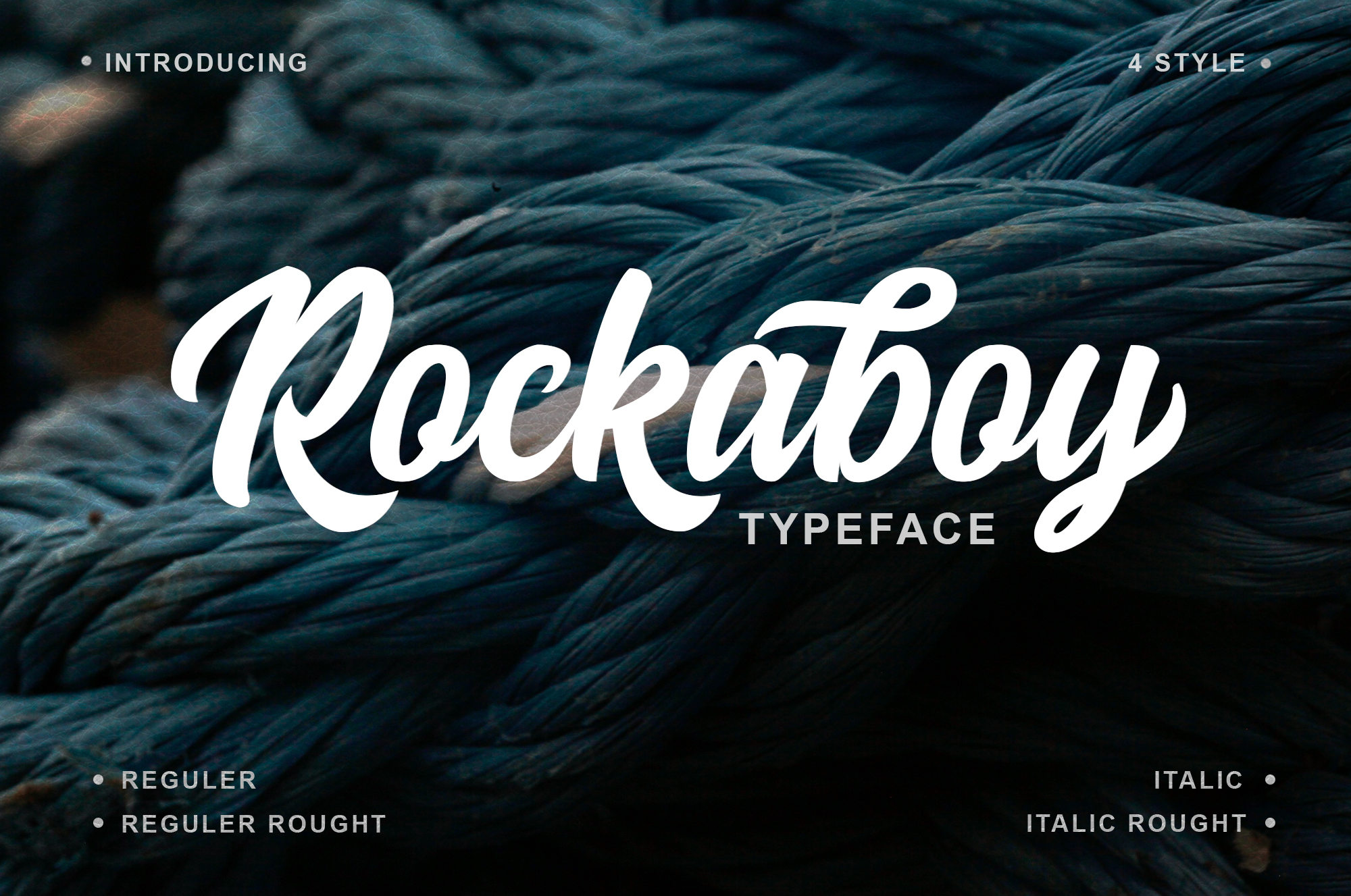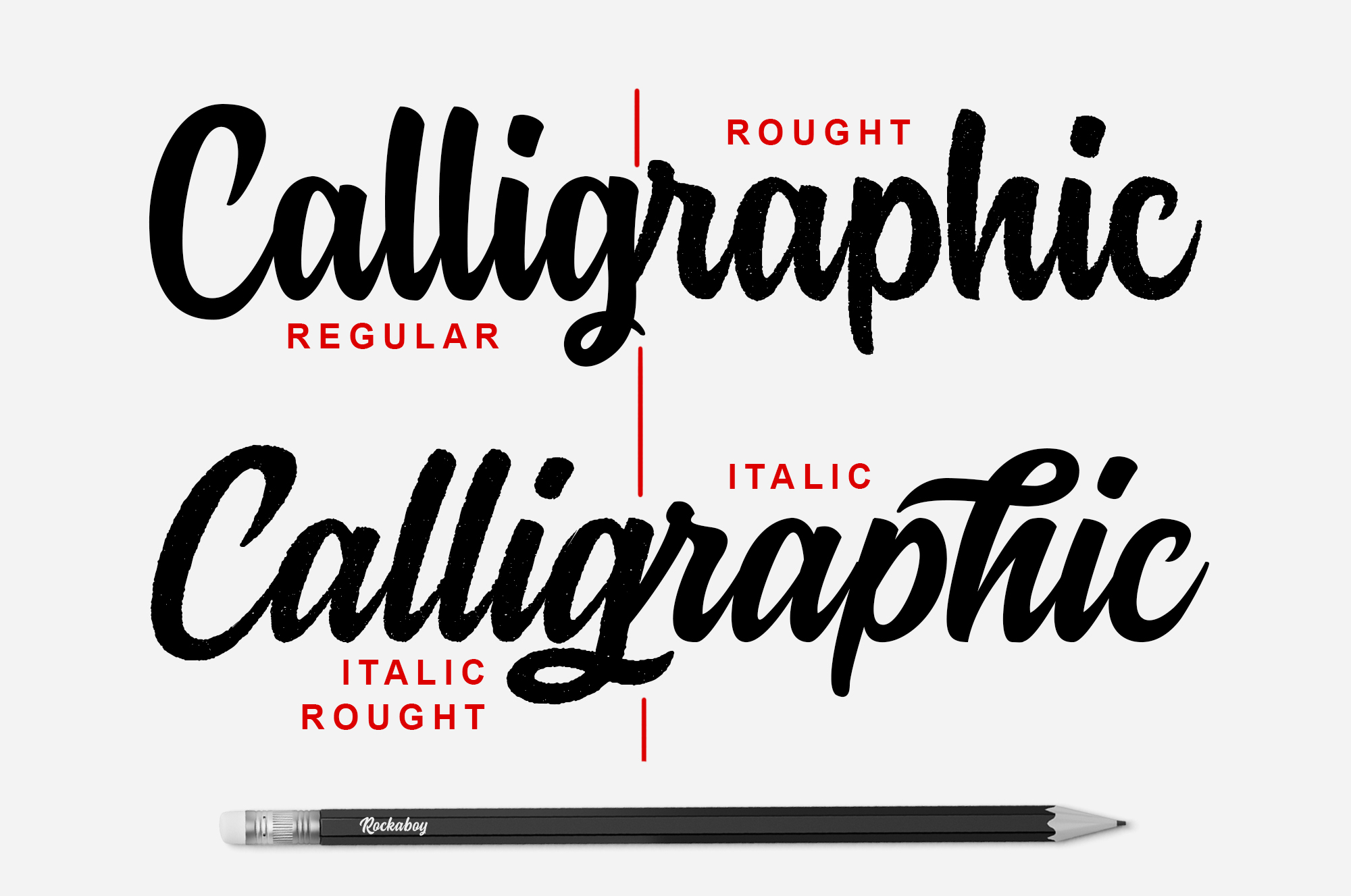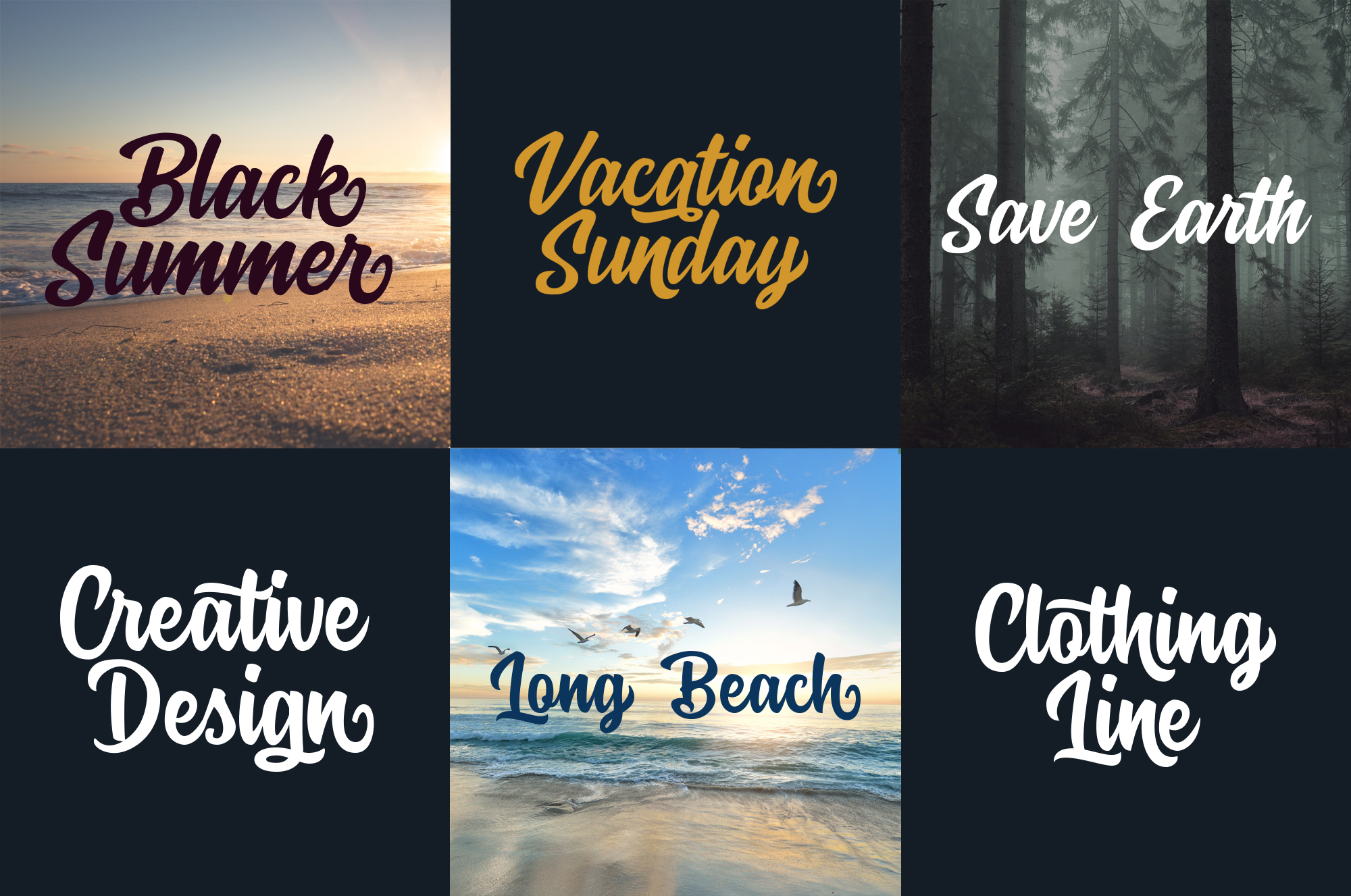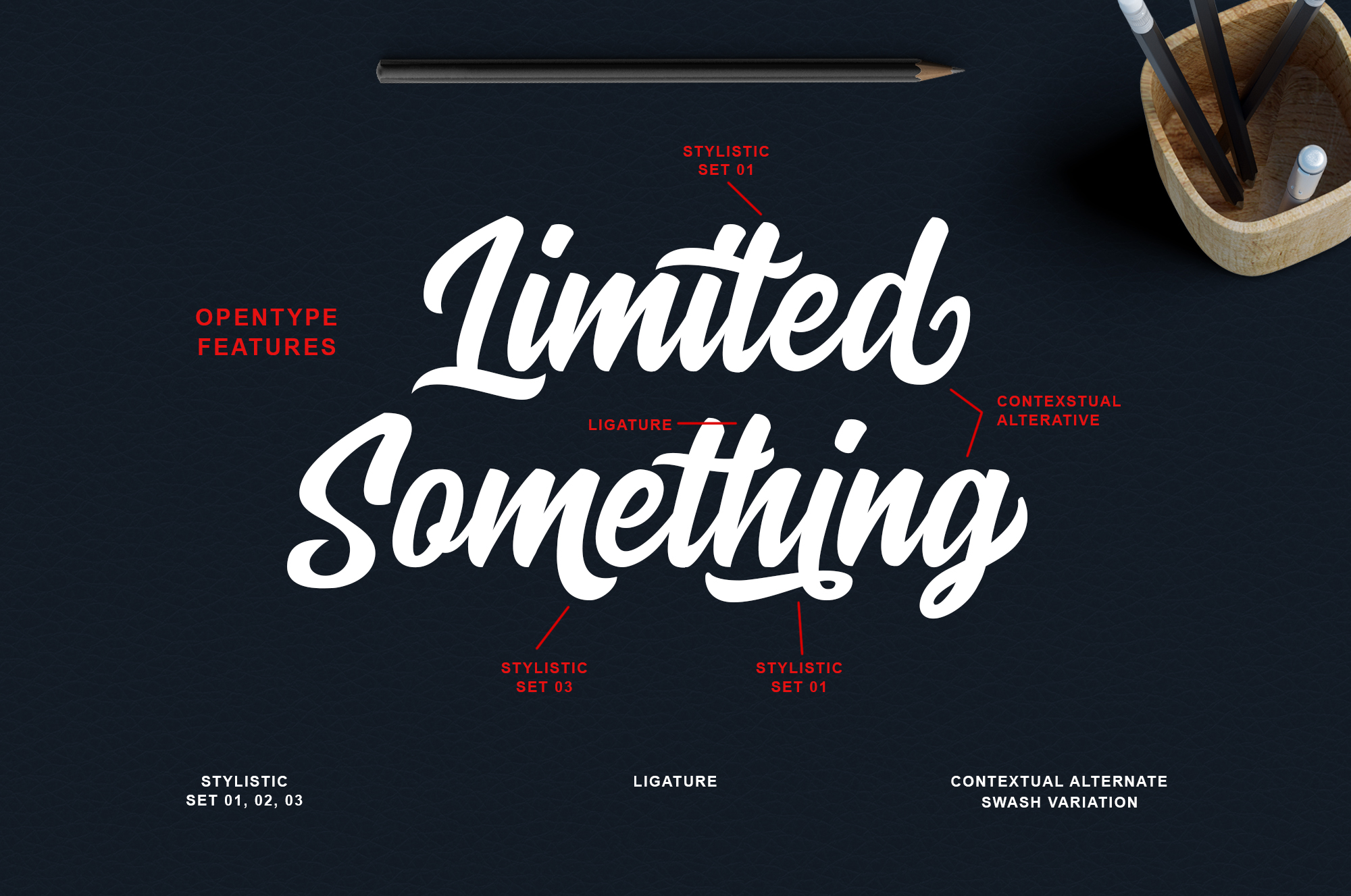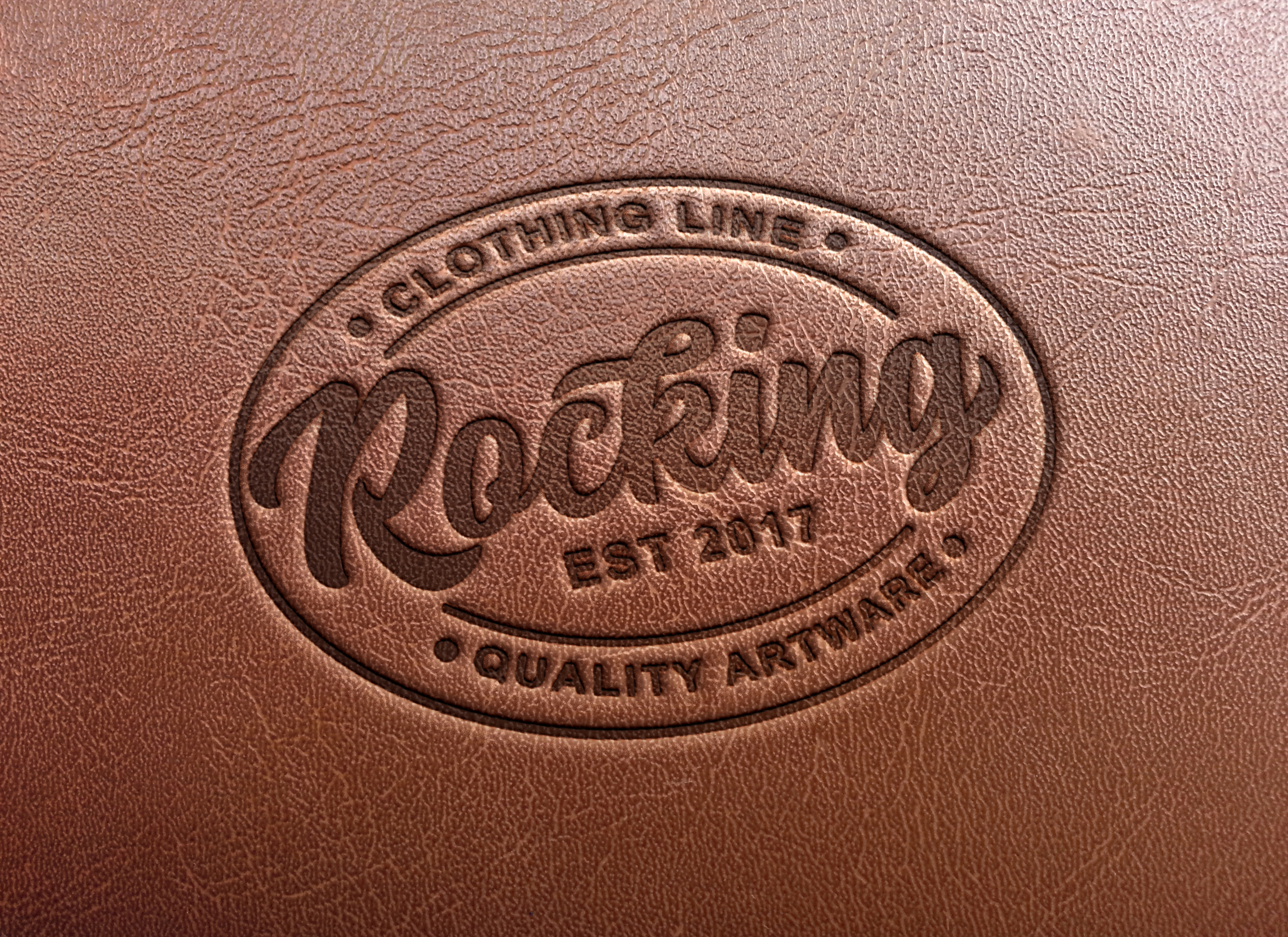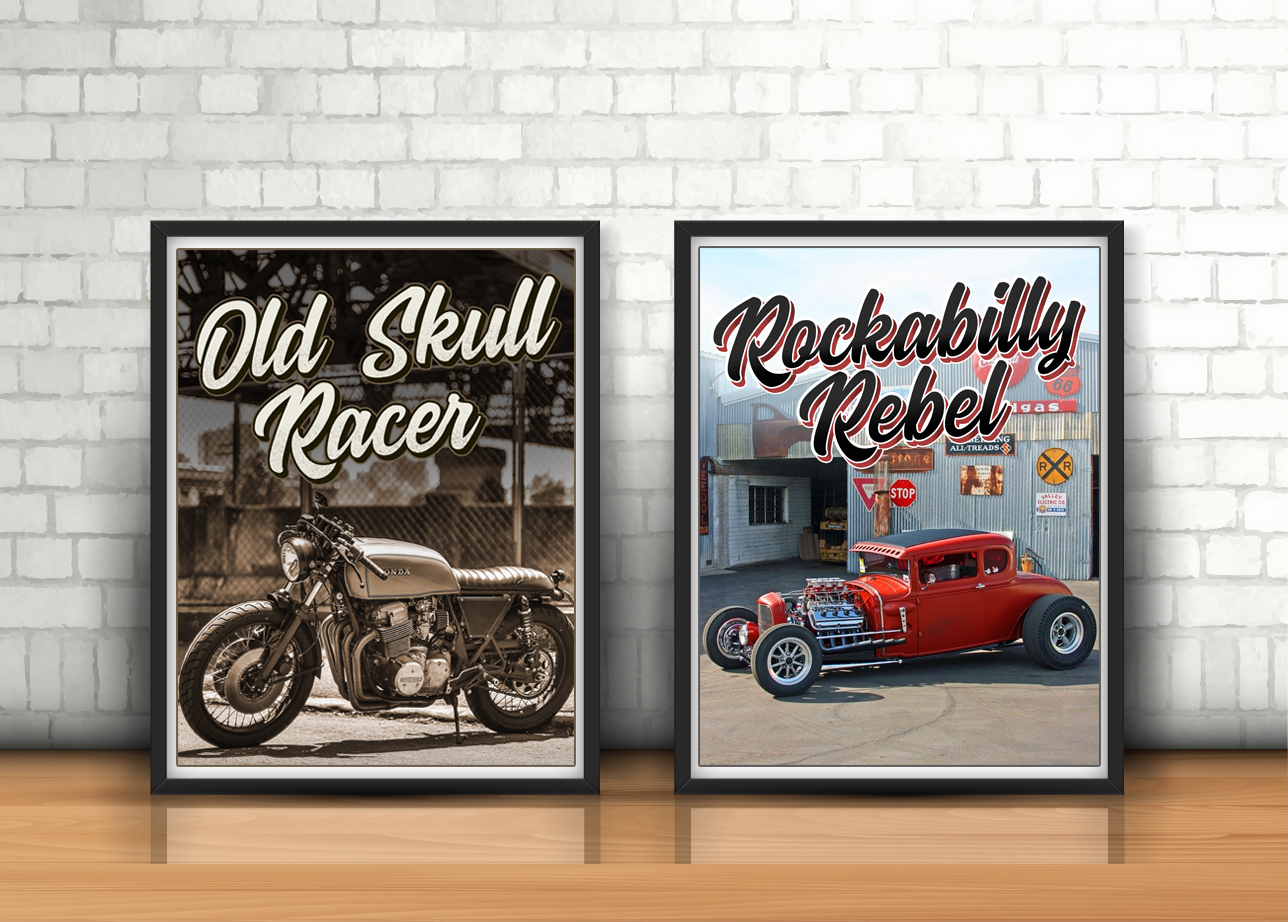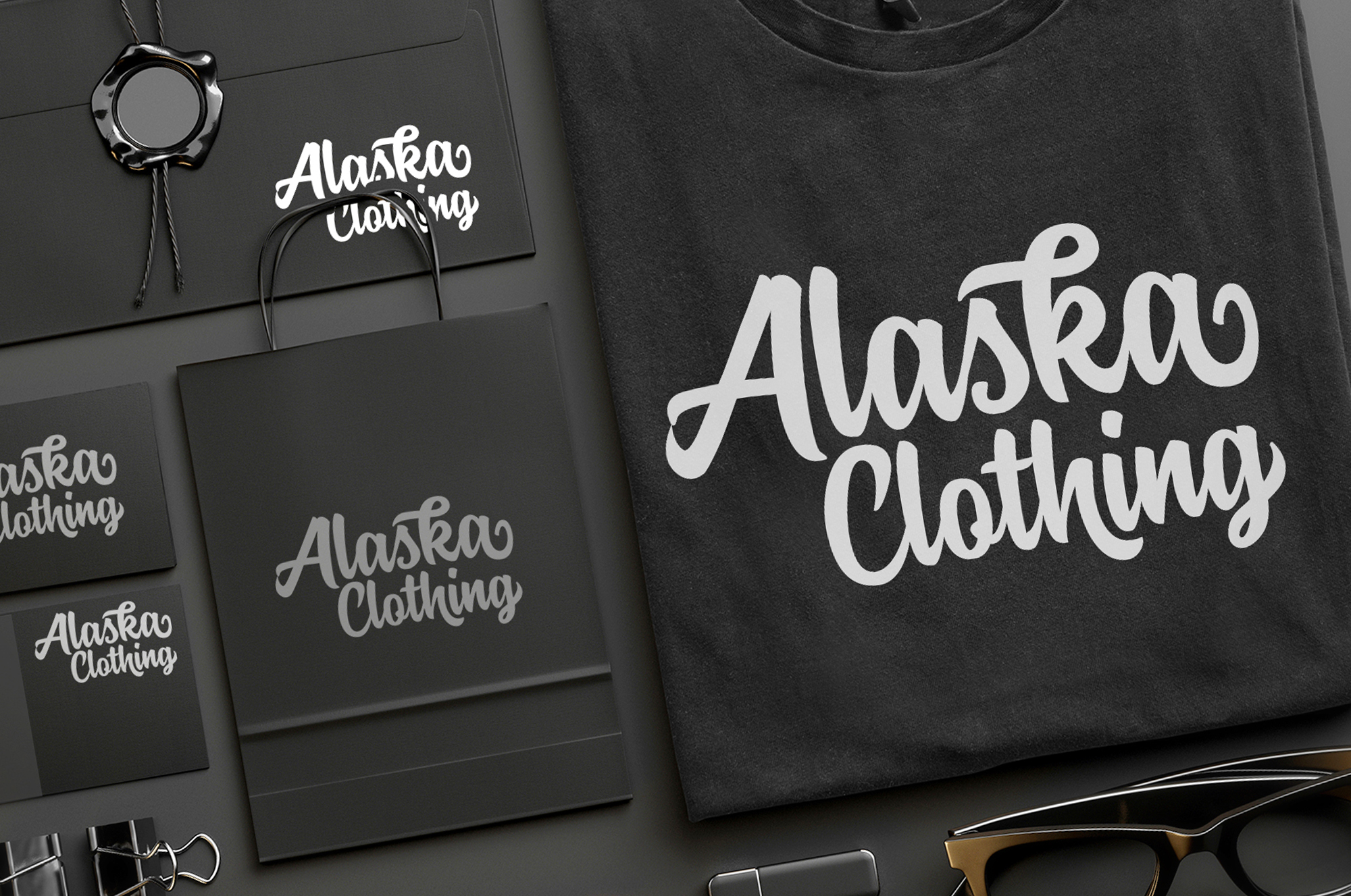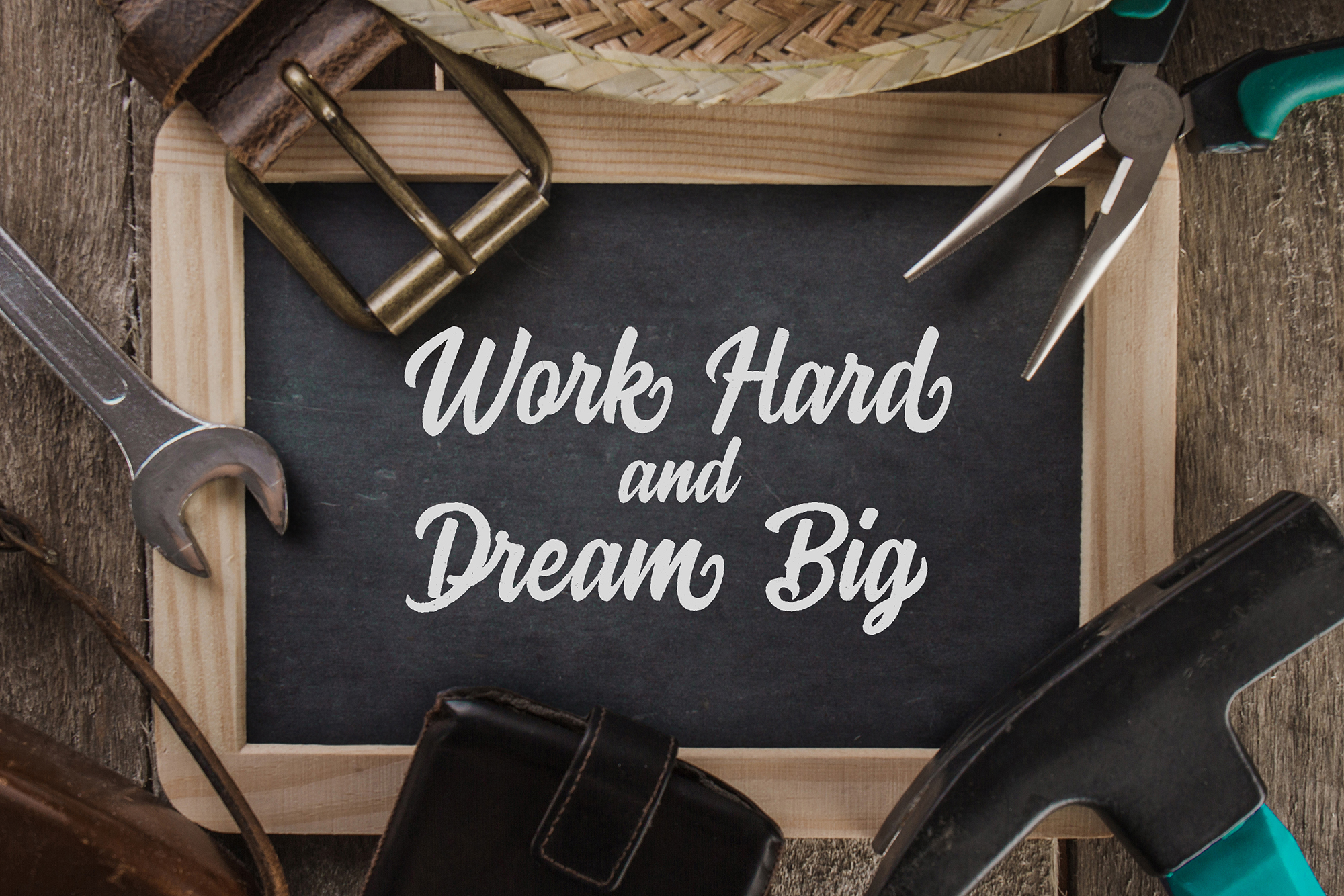
Rockaboy Font
About Rockaboy Font
Rockaboy is a wonderfully vintage yet modern font, one that is distinct by being bold, brazen, and classically appealing. This is a great display font, one that can add a ton of appeal and style to your designs.